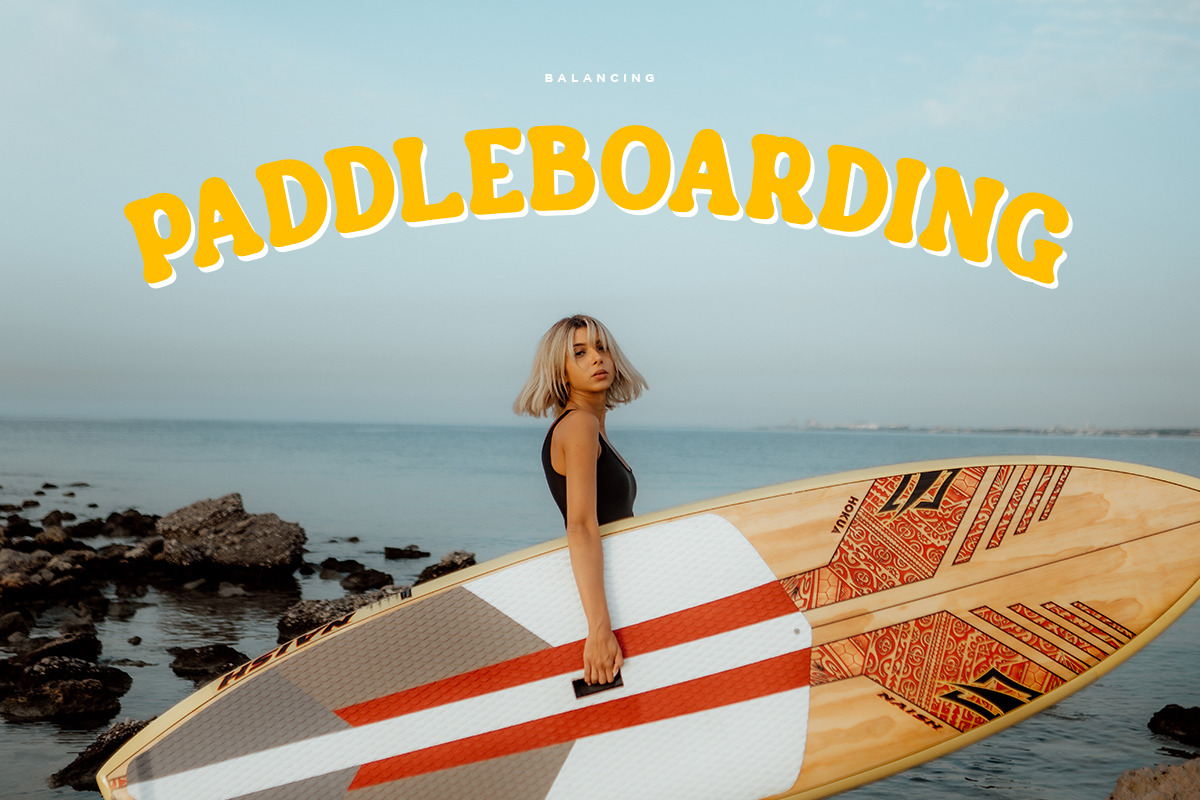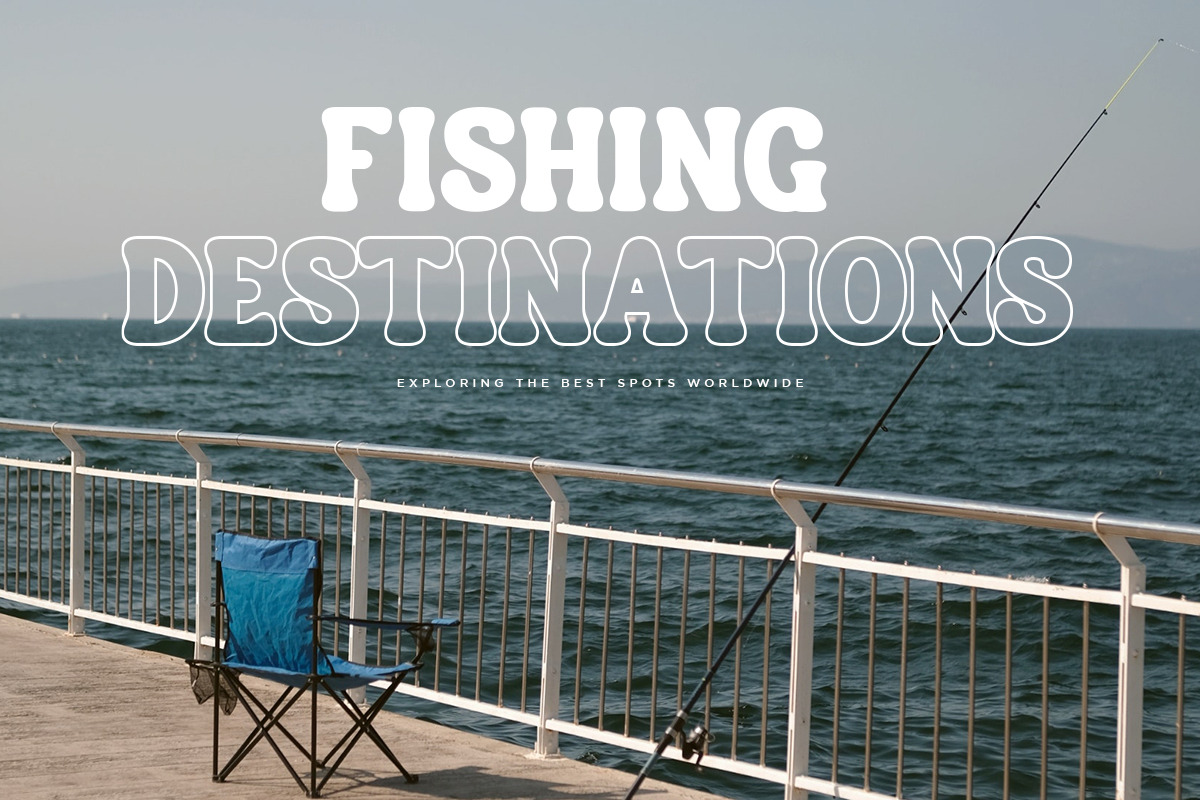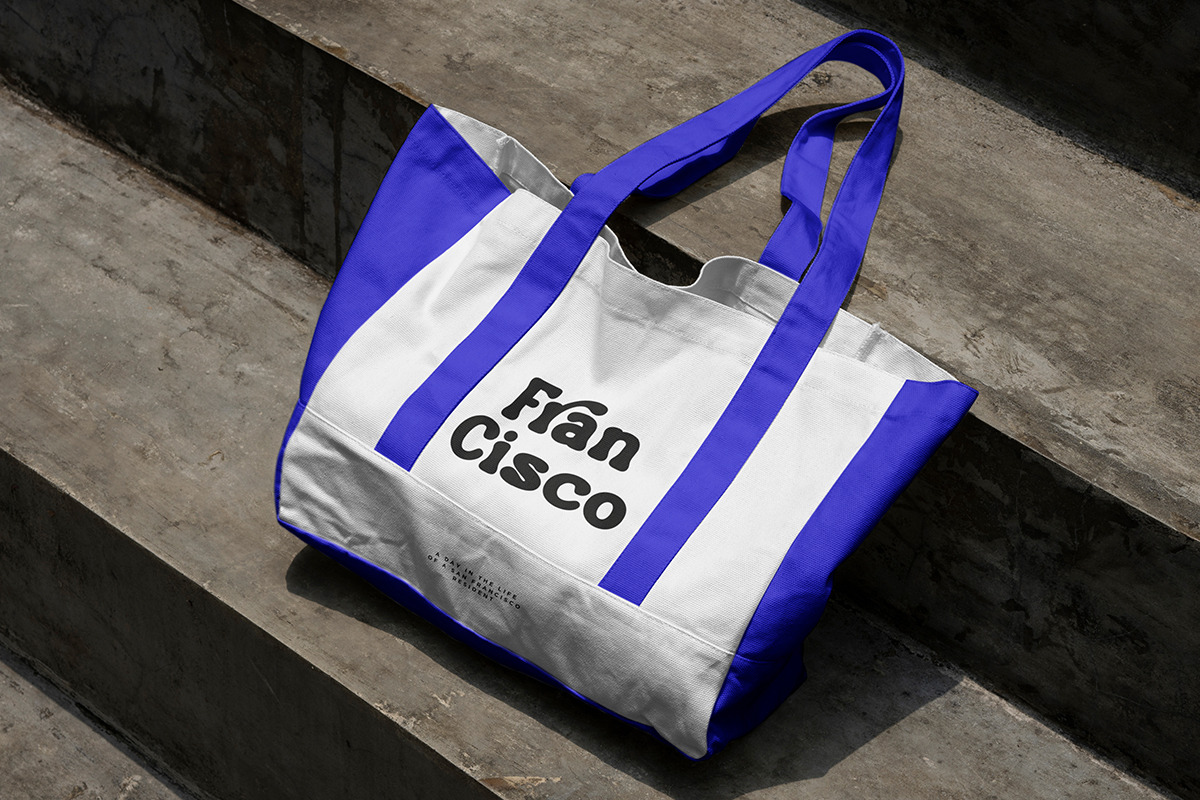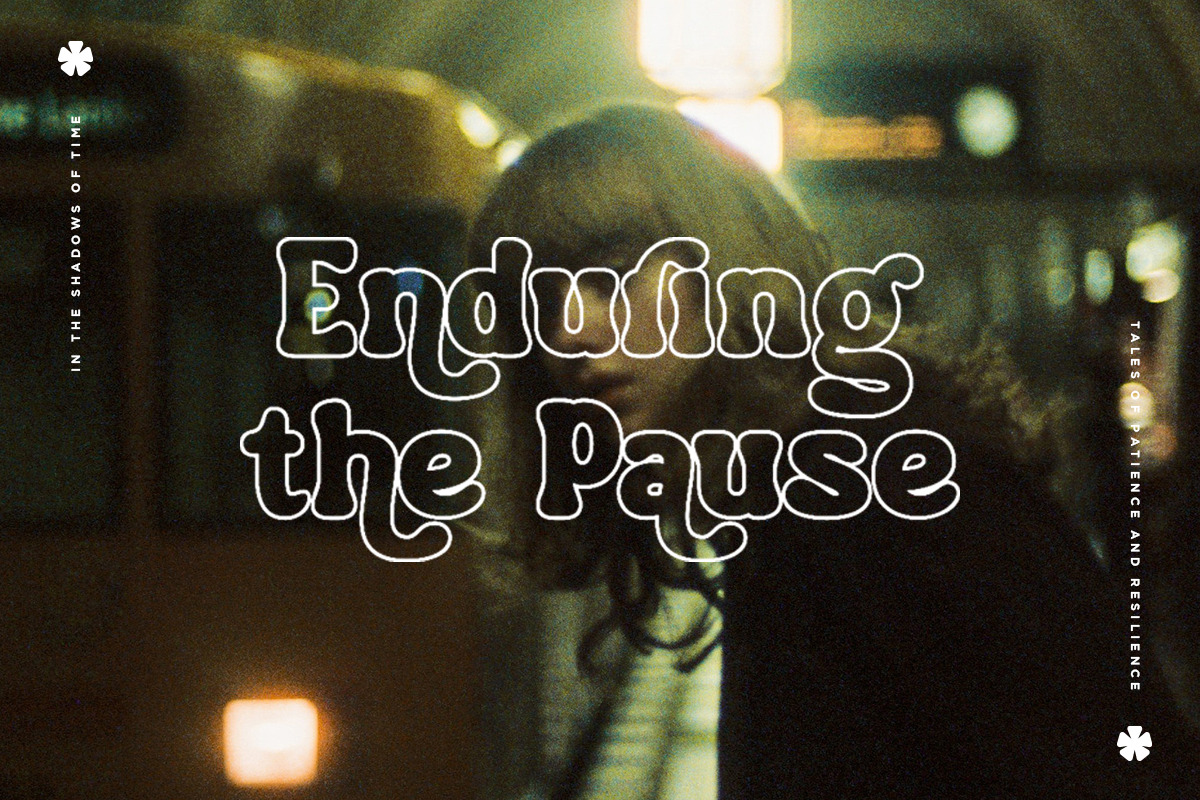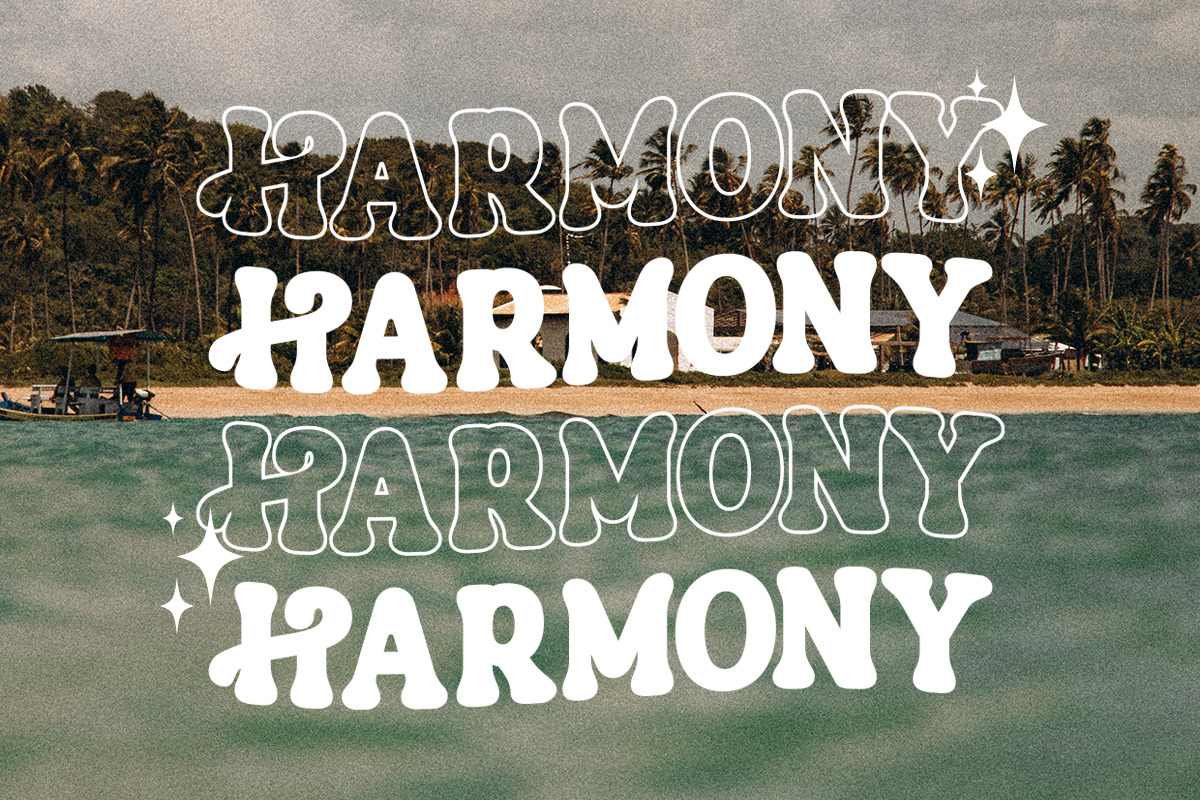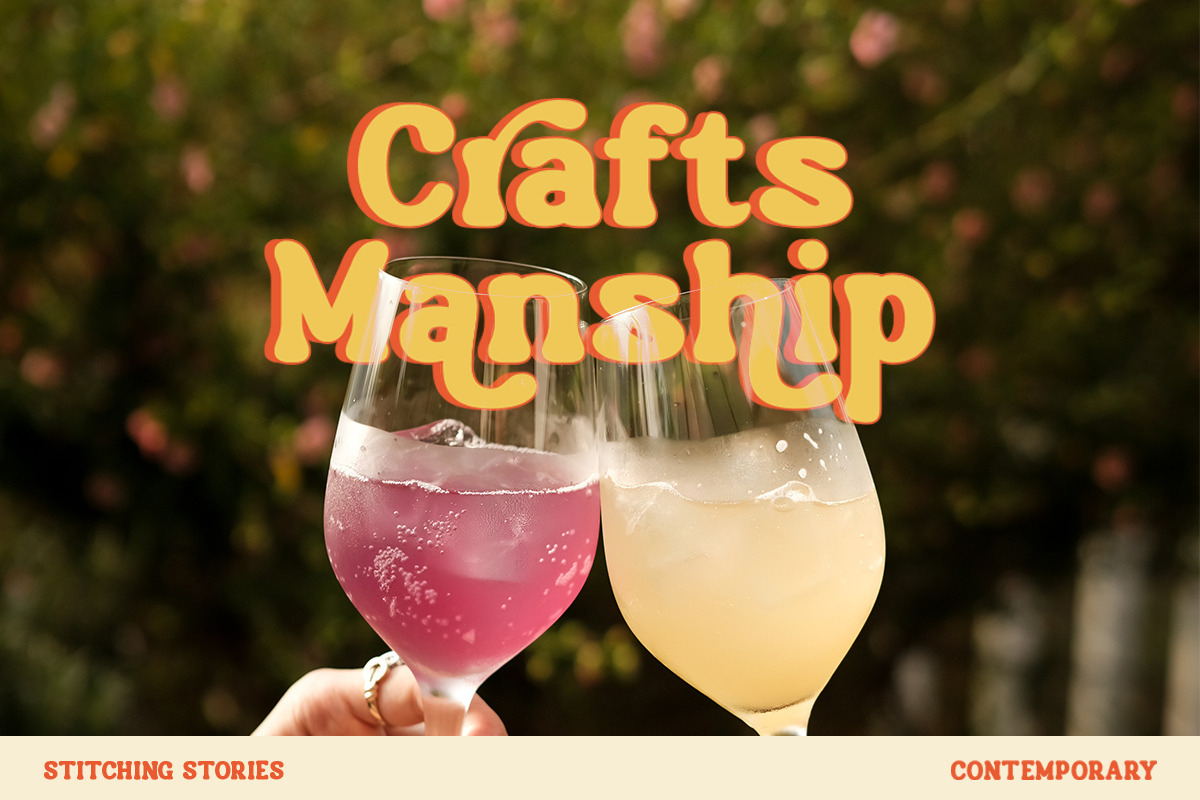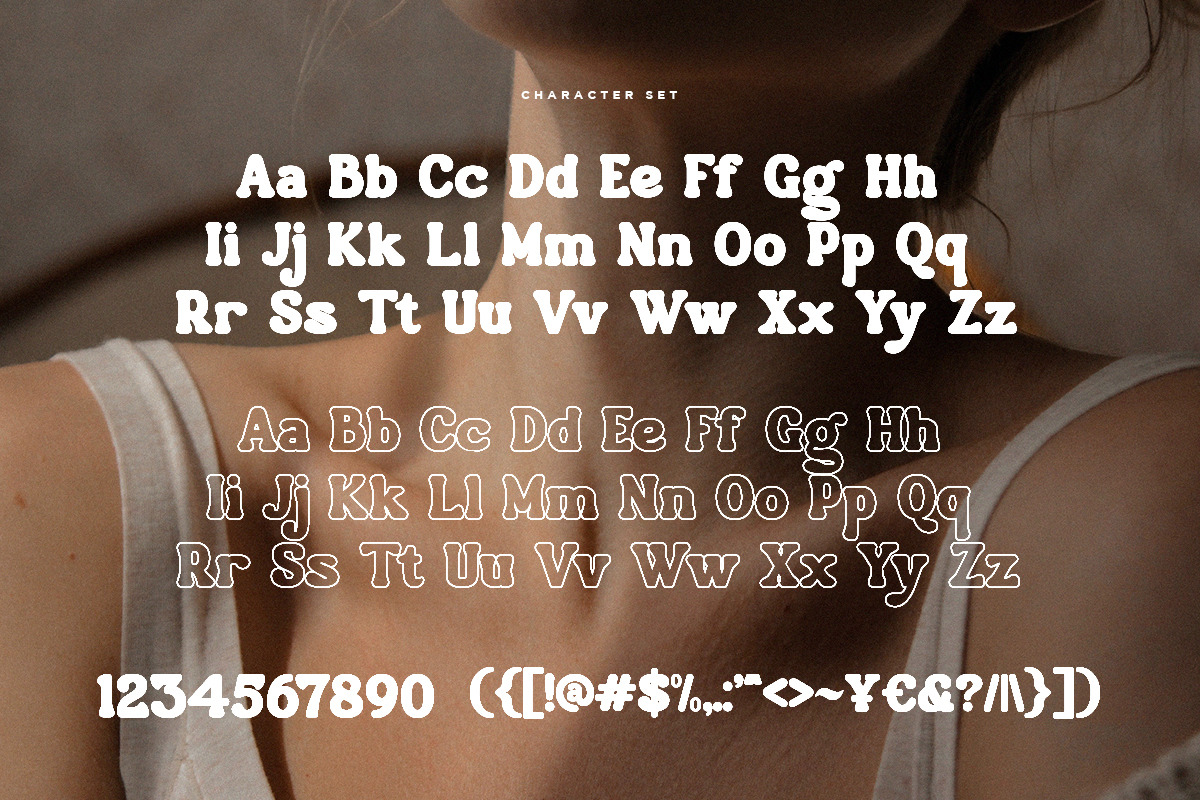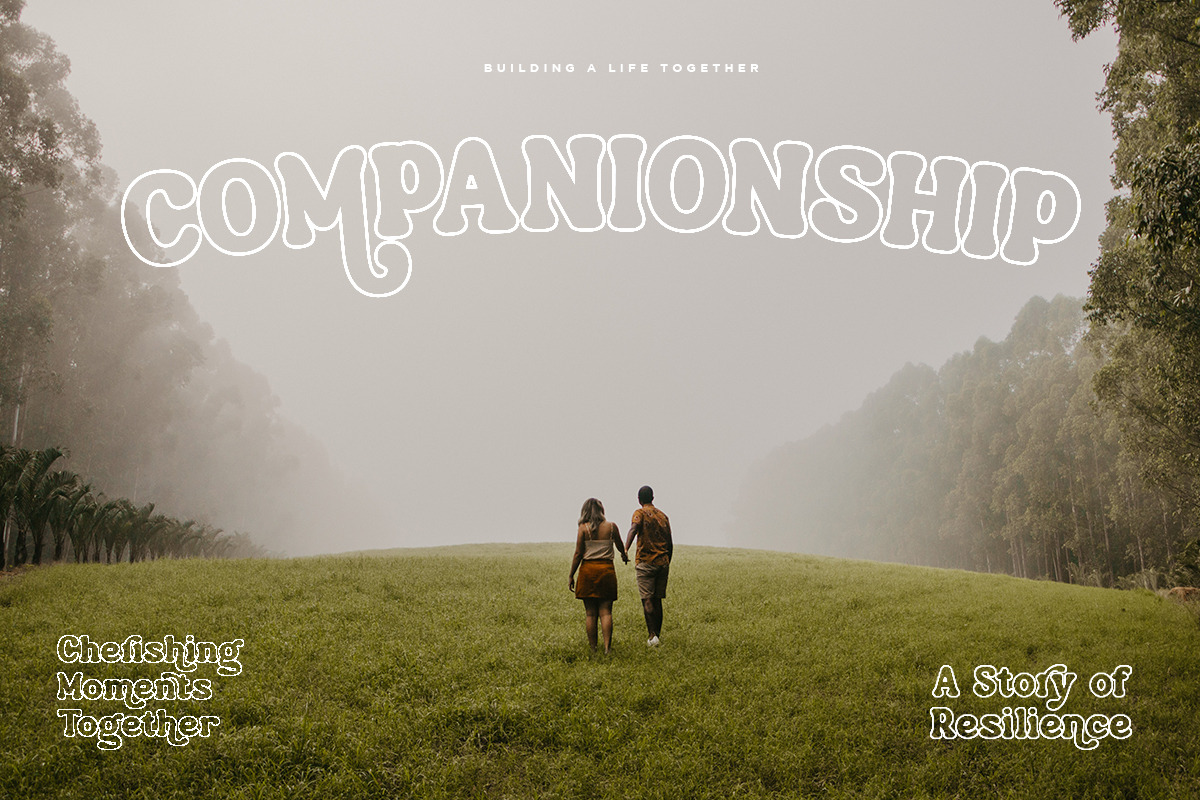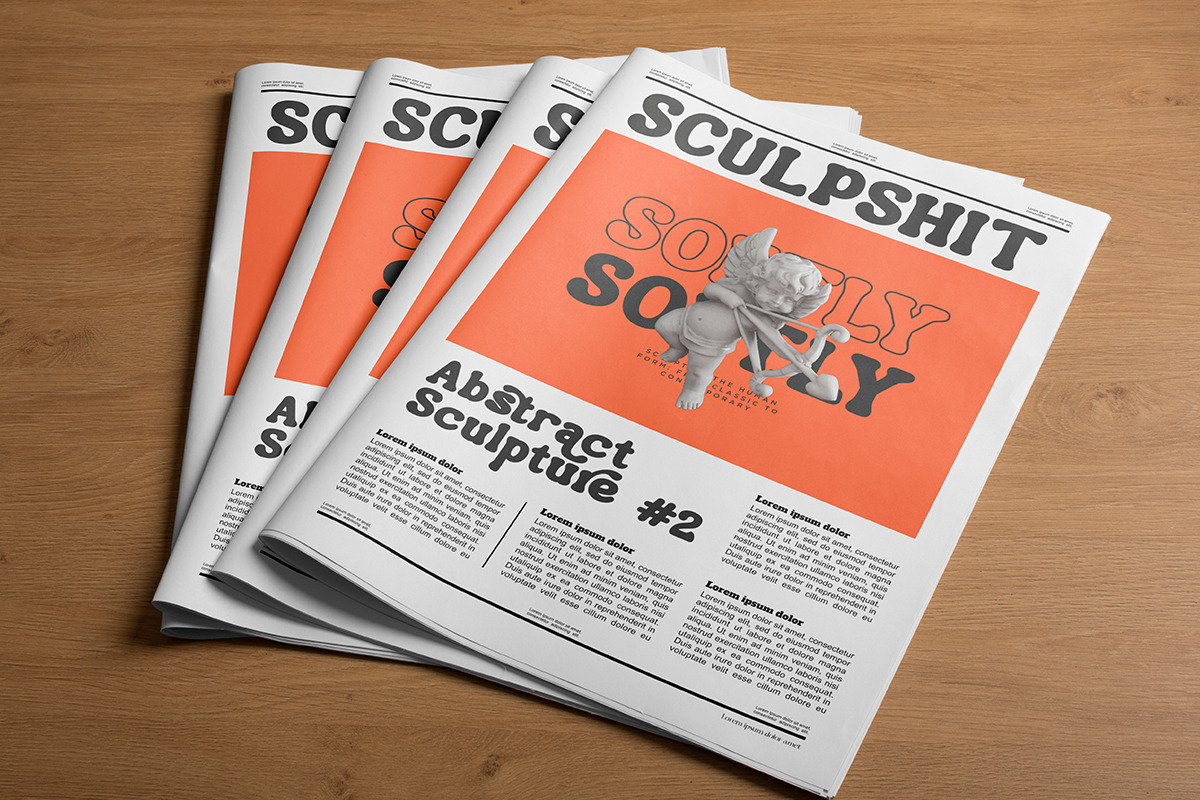
Janora - Retro Decorative Display
Janora is a retro display serif font that exudes a classic charm and bold character. With its design inspired by retro styles, this font brings an elegant touch and evokes a sense of the past. Each letter is meticulously crafted with careful attention to detail and proportion, resulting in a visually appealing and unique appearance.
Janora is perfect for projects that require a vintage feel, such as posters, logos, packaging, and promotional materials that aim to capture a nostalgic and sophisticated atmosphere. This font will add a special touch to your designs and captivate viewers with its retro allure and distinctiveness.
- Uppercase And Lowercase
- Alternates And Ligatures